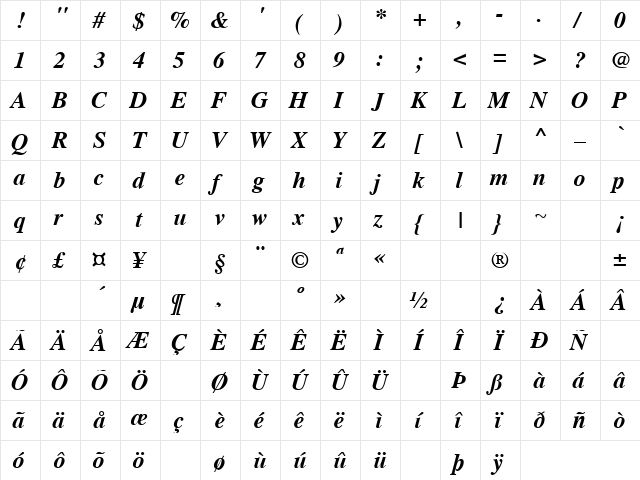
Brain Damage 8 Regular
Design Context for Brain Damage 8 Typeface
Brain Damage 8 takes a measured approach to typography — its balanced proportions and neutral character make it a reliable workhorse for both digital and print work.